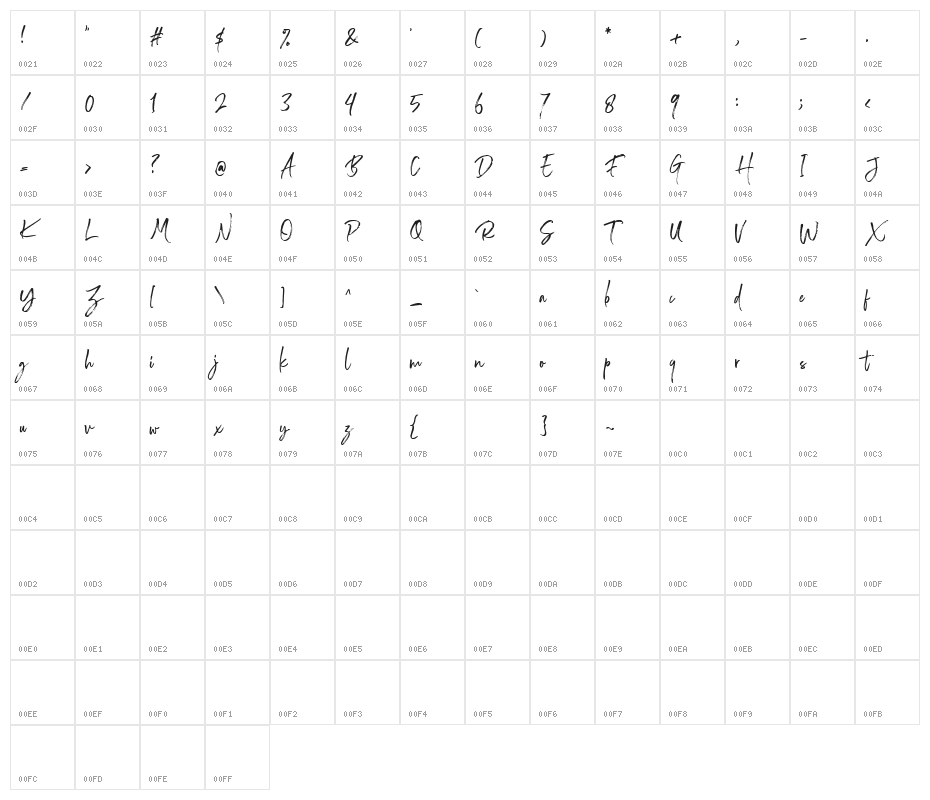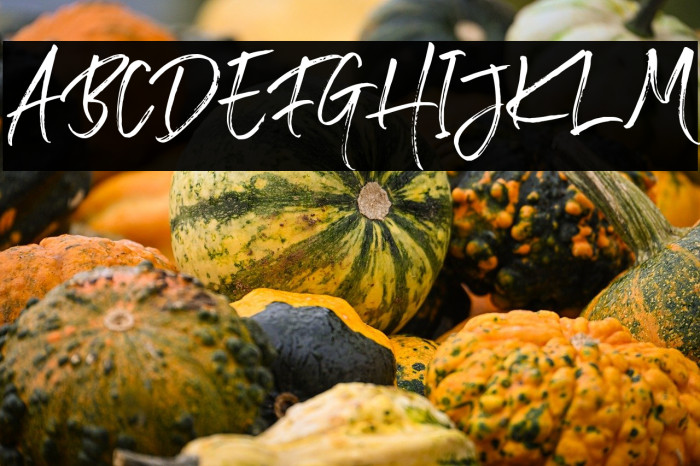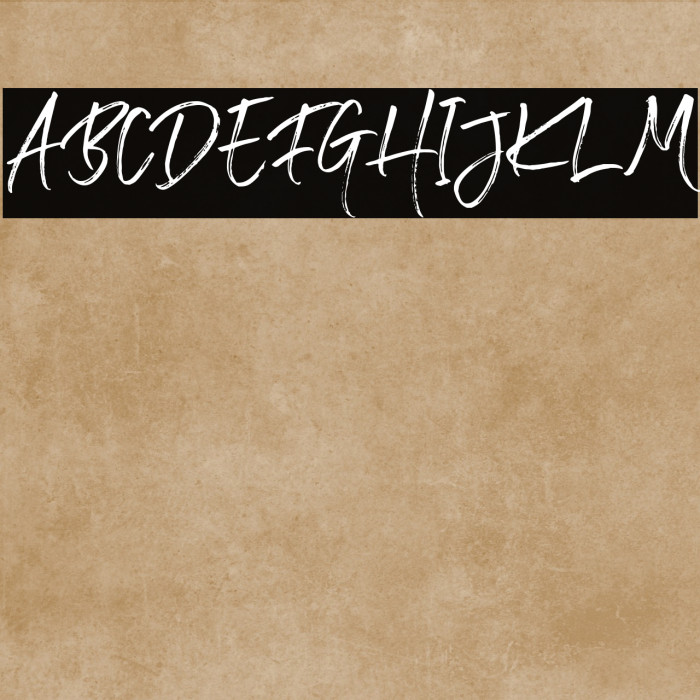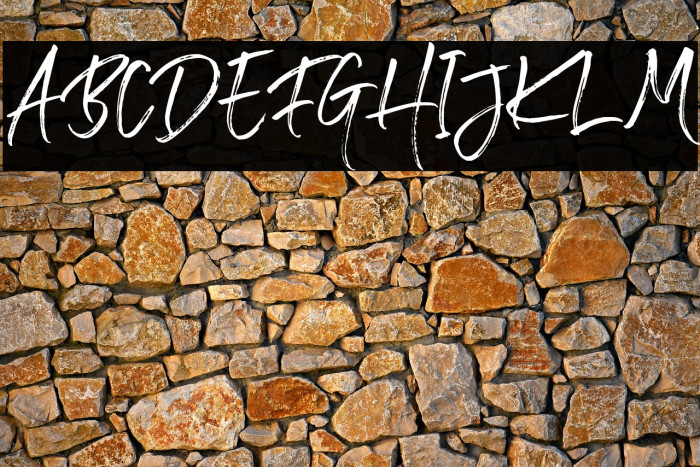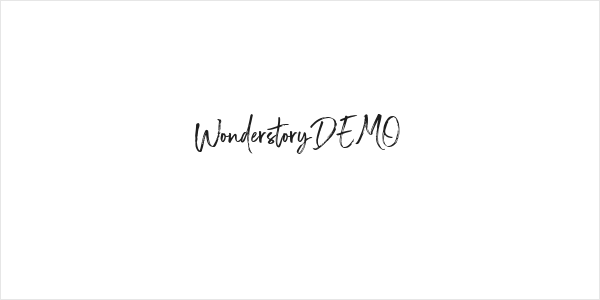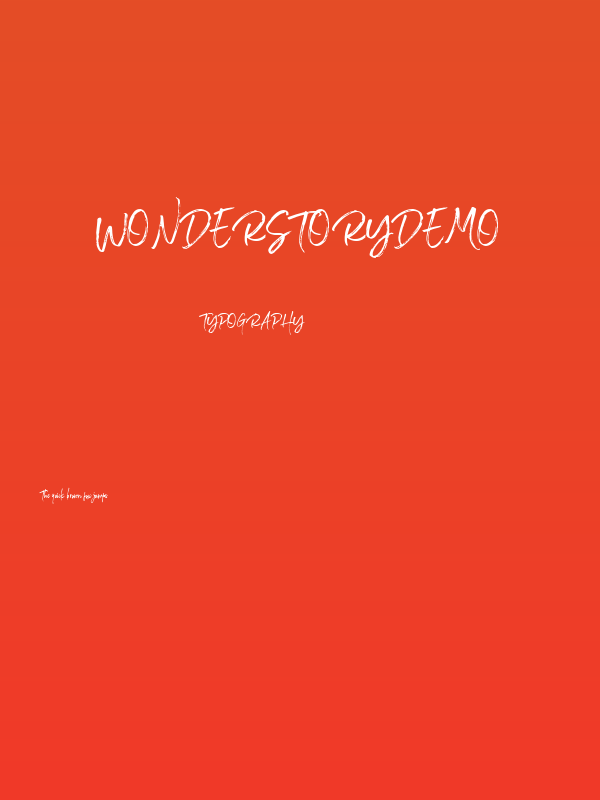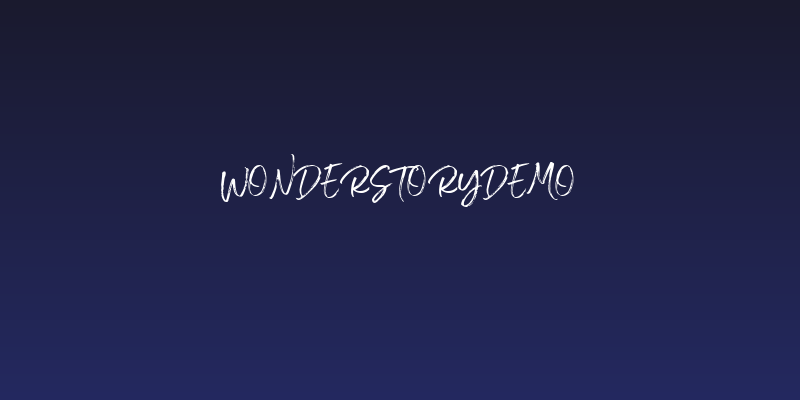
WonderstoryDEMO Font
WonderstoryDEMO Description
This font exudes a dynamic and artistic flair, characterized by its brush-like strokes and fluid, handwritten style. The uppercase letters are bold and expressive, with varying stroke thickness that adds a sense of movement and energy. The lowercase letters maintain the same artistic quality, offering a cohesive look across different text cases. Numbers and special characters are crafted with the same attention to detail, ensuring versatility in design applications. The overall appearance is both modern and artistic, making it suitable for creative projects that require a personal touch.
| Overall Style | Modern, Artistic |
| Proposed Projects | Ideal for branding, invitations, posters, and artistic projects that require a personal, creative touch. |